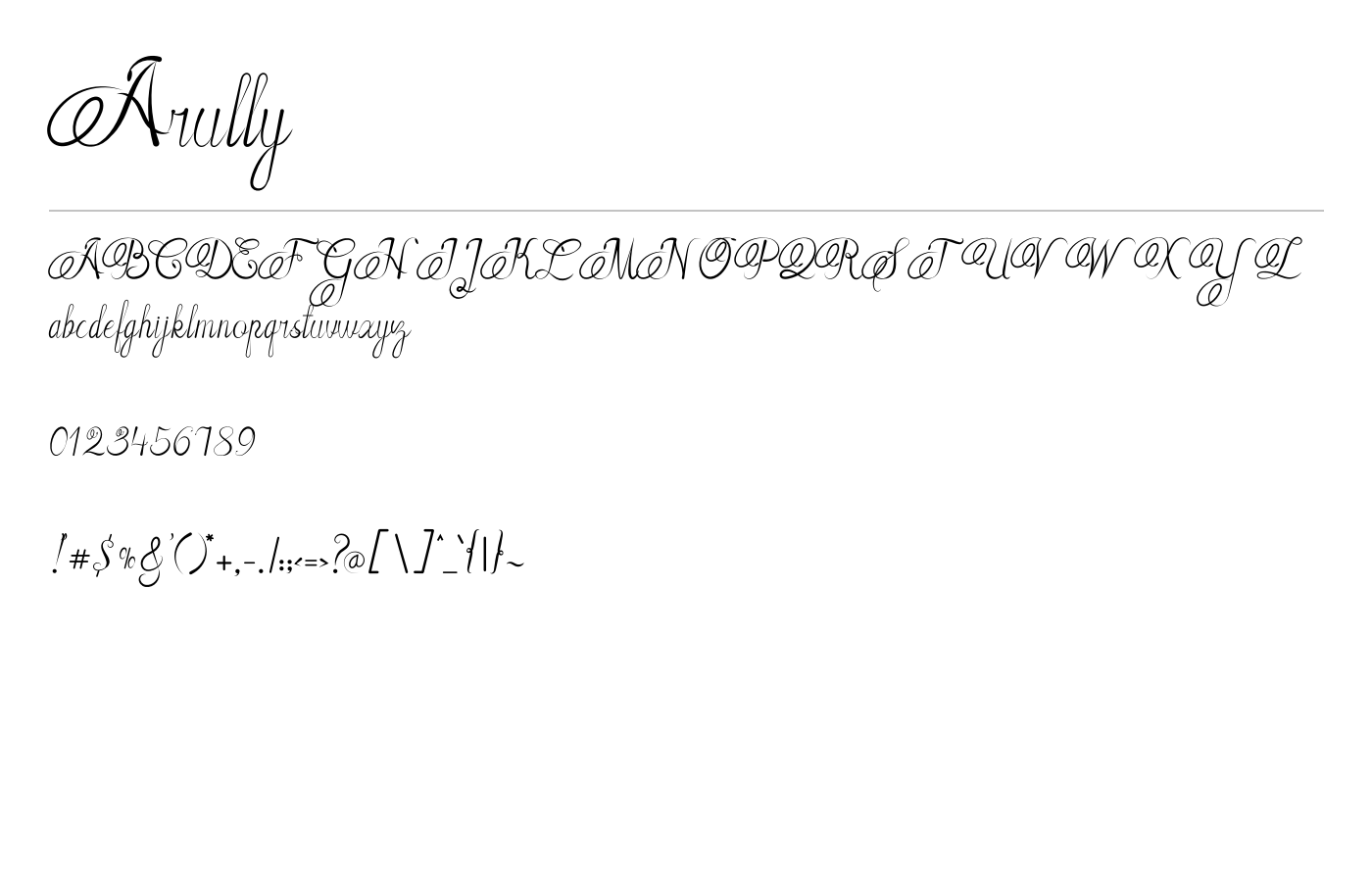
Arully is an elegant script font featuring delicate, flowing strokes with high contrast between thin and thick lines, giving it a refined and sophisticated appearance. Its ornate uppercase letters and slender lowercase forms make it ideal for luxury branding, invitations, and decorative headlines where a graceful, romantic touch is desired. This font works best in settings that call for a stylish, classic look with a personal, handcrafted feel.
Arully Font
About Arully Font
| Font family | Arully Font |
| Designer | FebrylArully |